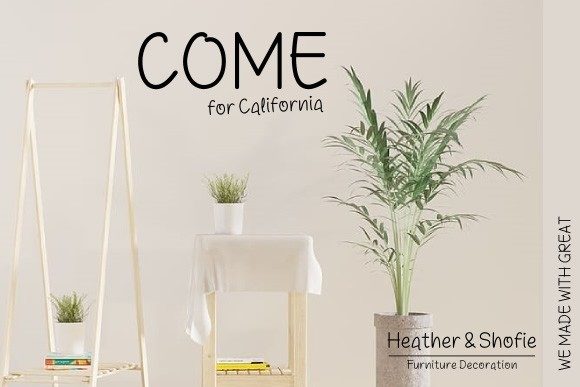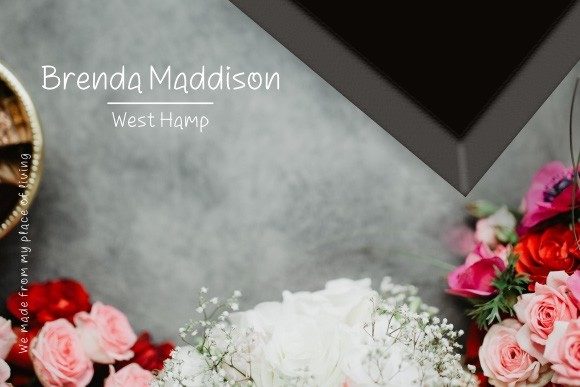
Nathasyana Font
About Nathasyana Font
Nathasyana is a beautiful and simple script font. It has a classy, elegant and modern look that can be used for logos, branding, invitations, stationery, wedding designs, social media posts, and much more!